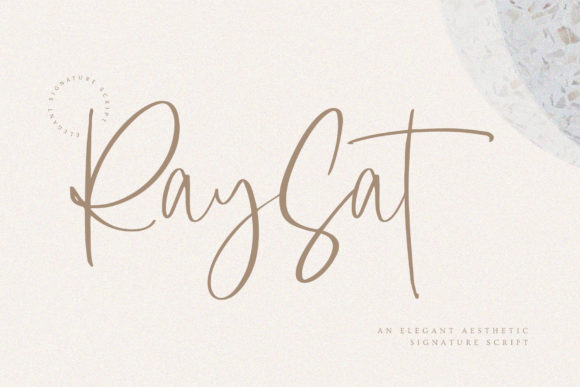
Behold Raysat - Journey into an Artistic Realm:
Raysat is not just another font; it's an experience. Crafted with meticulous care and a dash of artistry, this script font beckons you on an adventure through the written word. Each letter is meticulously designed, capturing the essence of timeless elegance with an inviting, personal touch.
Travel the World with the Spirit of Adventure:
Envision yourself crafting travel videos that capture the very essence of your adventures. Raysat becomes your trusted companion, enhancing your videos with a charm that's both captivating and authentic. Let your audience feel the joy of exploration as they're swept away by the magic of your storytelling. From bustling cityscapes to serene mountain vistas, Raysat adds an aura of wanderlust to every frame.
Evocative Calligraphy for Creative Designs:
Raysat isn't just for travel videos; it's a versatile masterpiece that flourishes in a myriad of creative projects. Delight your audience with enchanting invitations, mesmerize them with captivating posters, and craft heartfelt cards that leave a lasting impression. The possibilities are limitless, as Raysat seamlessly blends timeless style with a touch of modernity.
Experience the Magic of Raysat:
Raysat is more than just a font; it's a gateway to artistic expression. With its timeless elegance and friendly vibes, Raysat transforms your words into captivating art, eloquently conveying your message. It's a must-have tool for designers, storytellers, and adventurers seeking to make a lasting impact through visual narratives.
Embrace Raysat, Embrace Beauty:
Raysat isn't just a collection of letters; it's an invitation to embark on a visual journey. As you use Raysat, you'll discover that it's not just a font - it's a work of art, a masterpiece that elevates your designs to new heights. Let the magic of Raysat captivate your audience, leaving them breathless with its beauty and elegance.